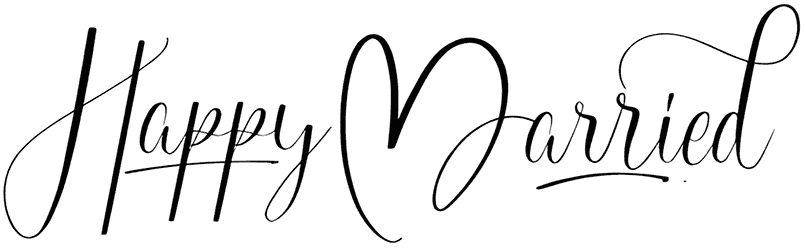
Happy Married Script Font
To convey the feeling of love, you can use words with a dancing style, and this calligraphy font can create this mood. Happy Married Script has curvy, delicate, and sweet lettering that would be used for modern or classic layouts. Even without numbers and punctuation marks, this wedding font would cause an amazing promotion for various items from logos to invitations.